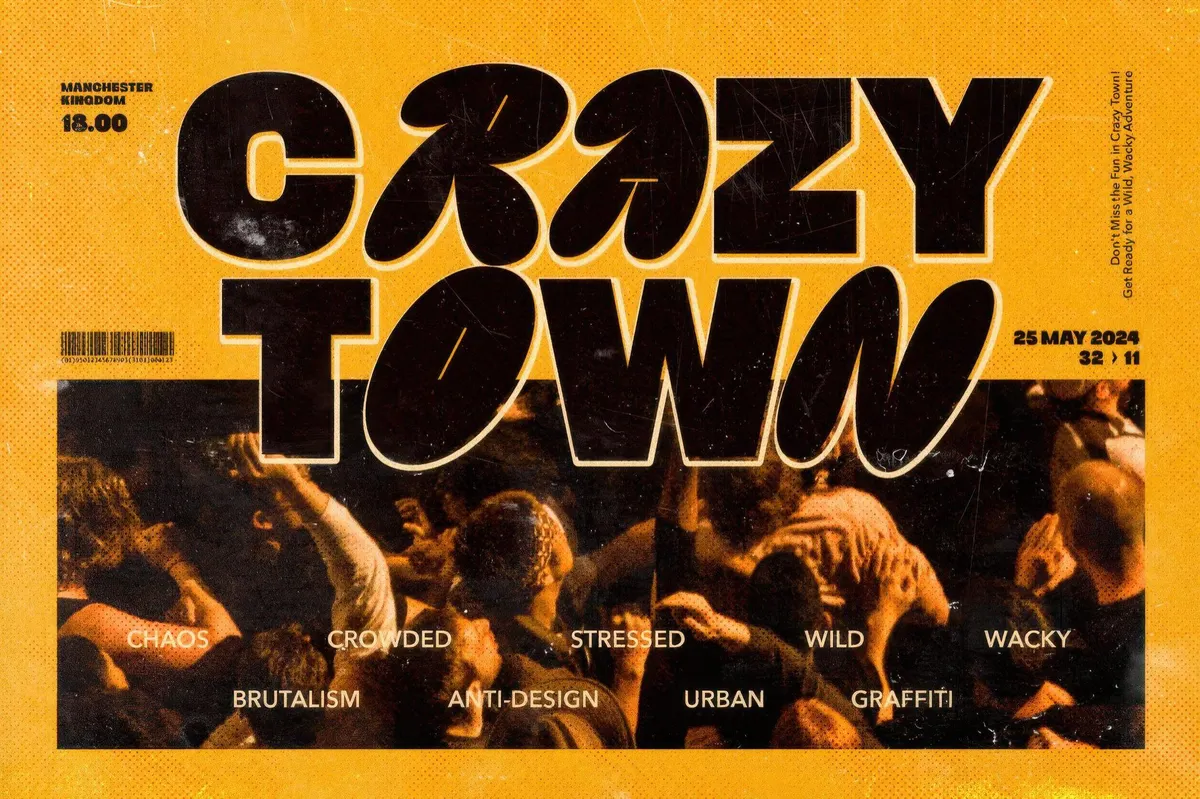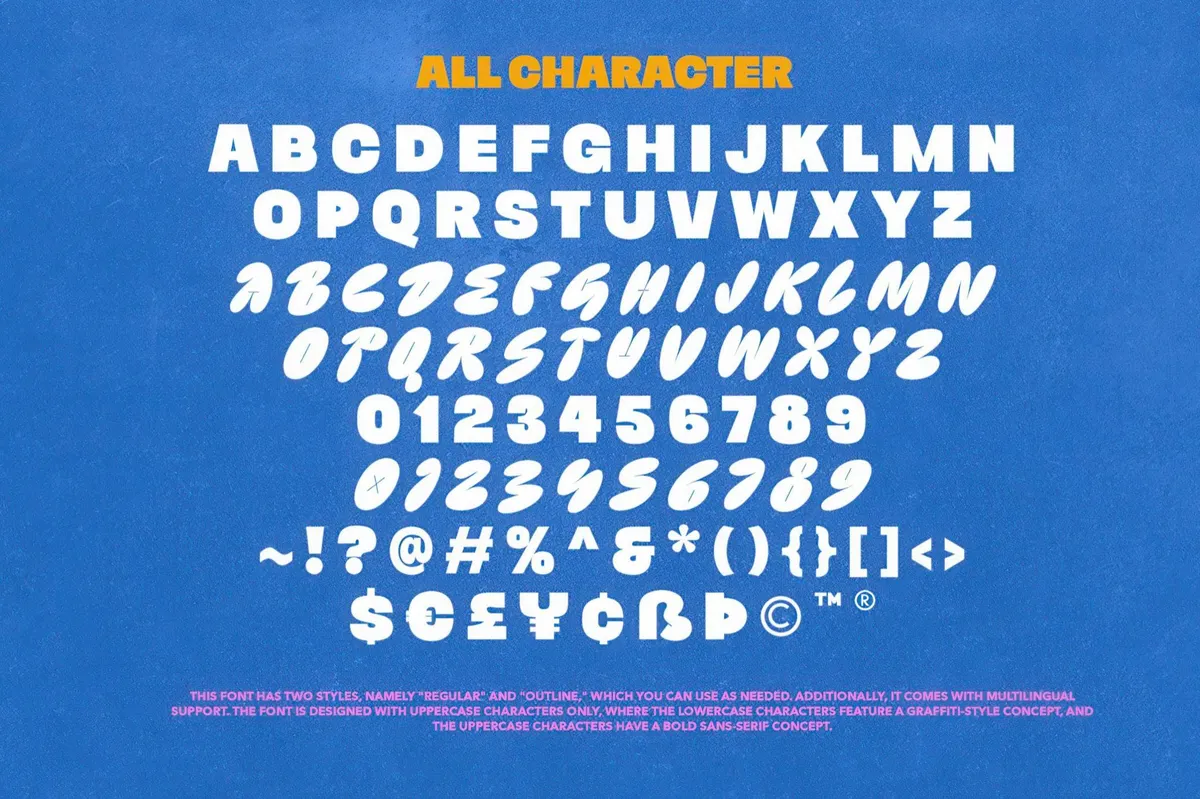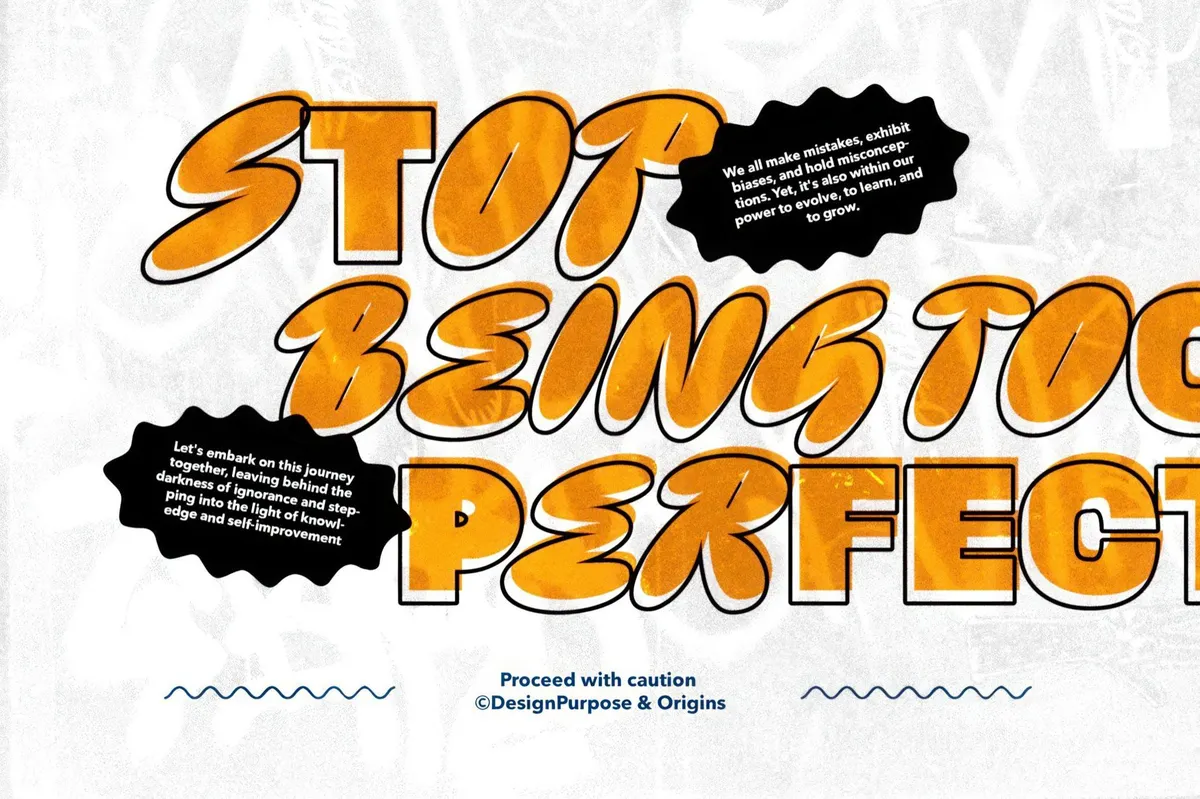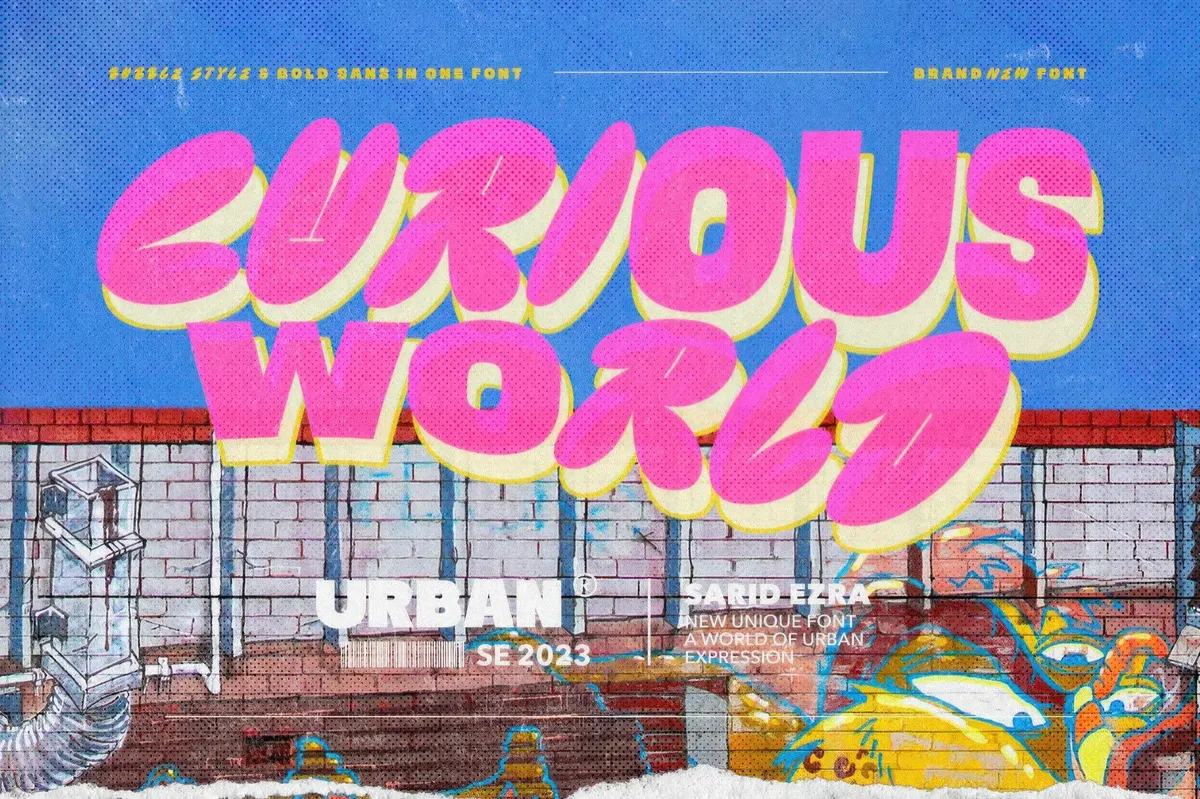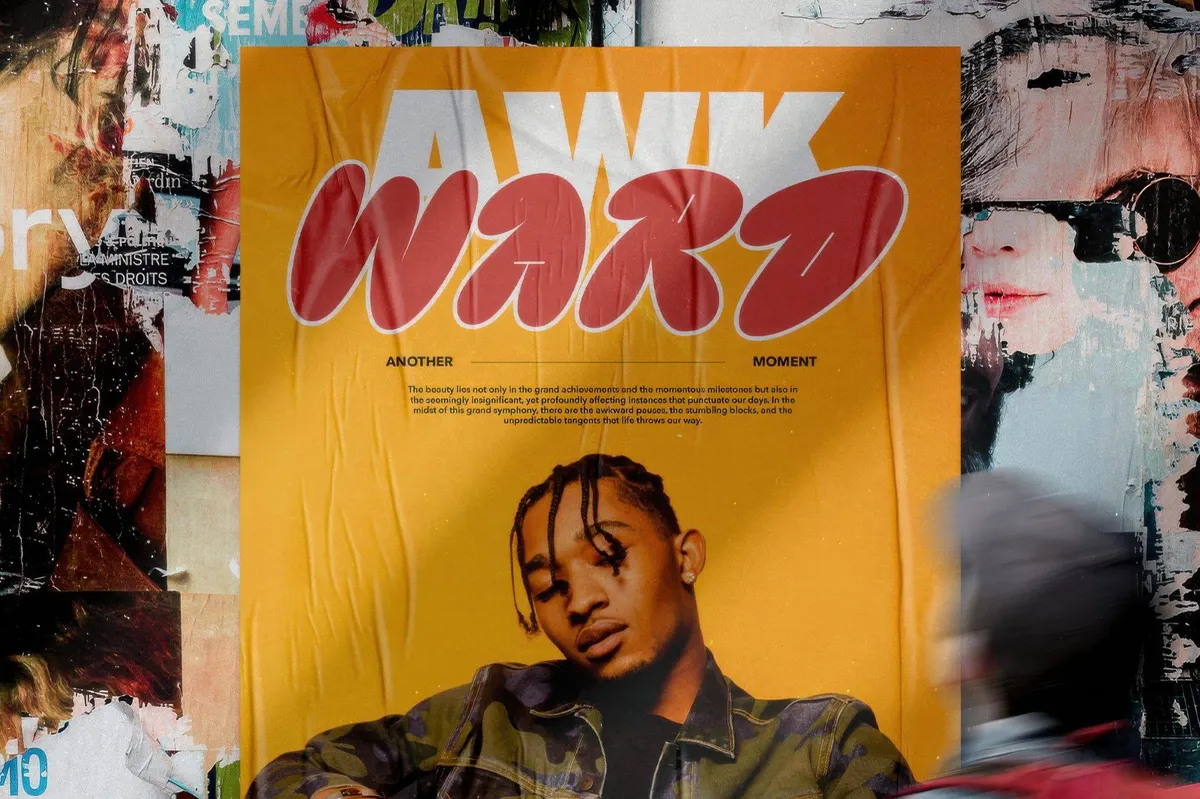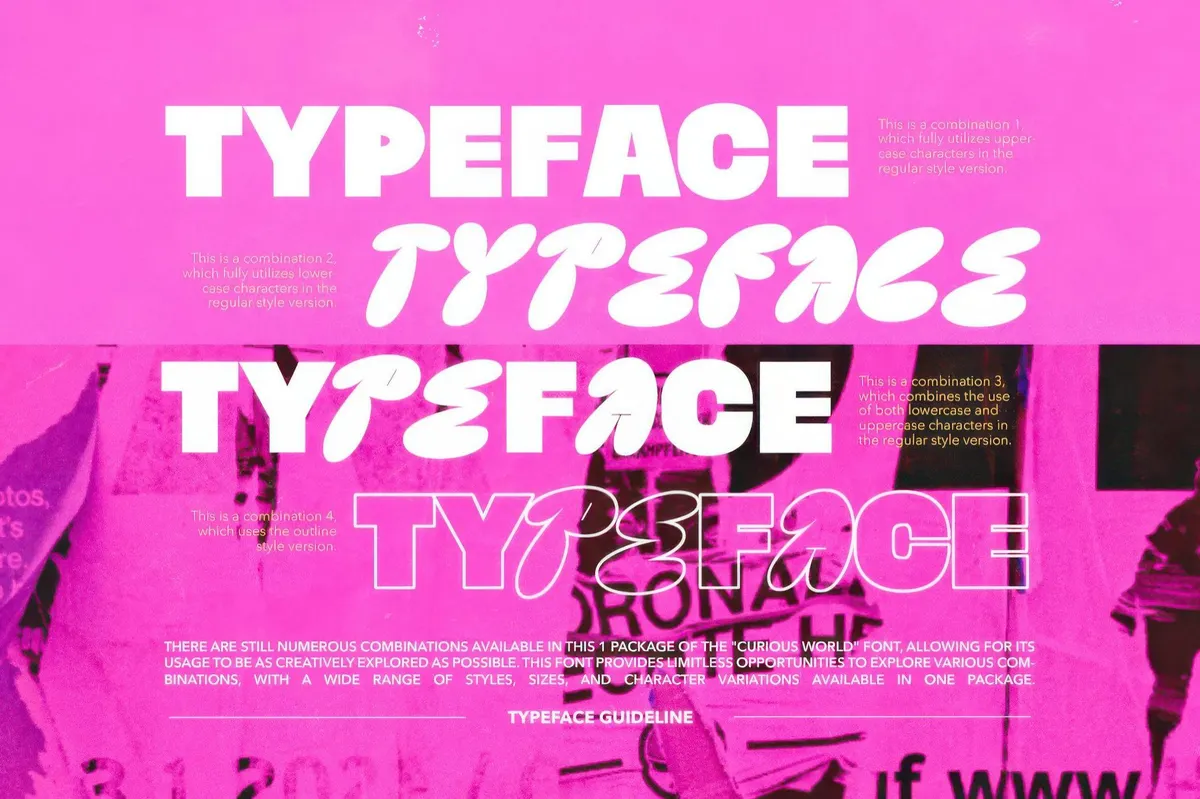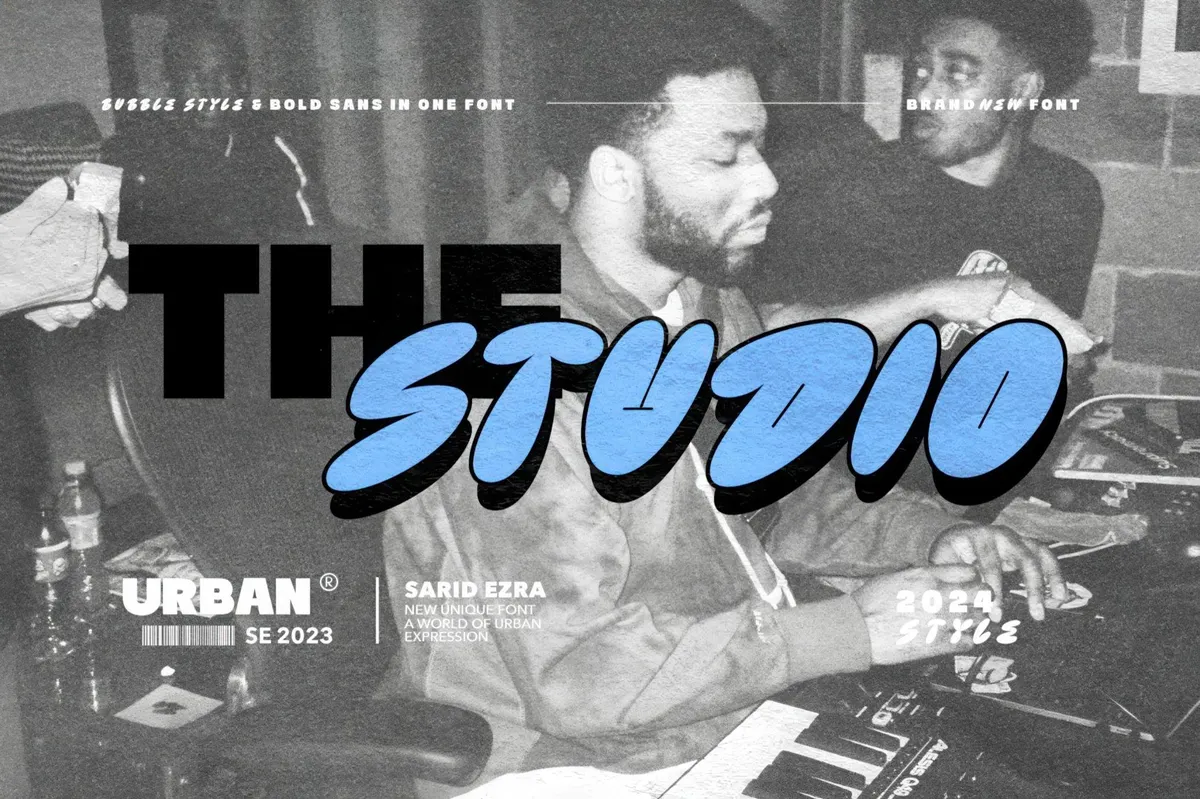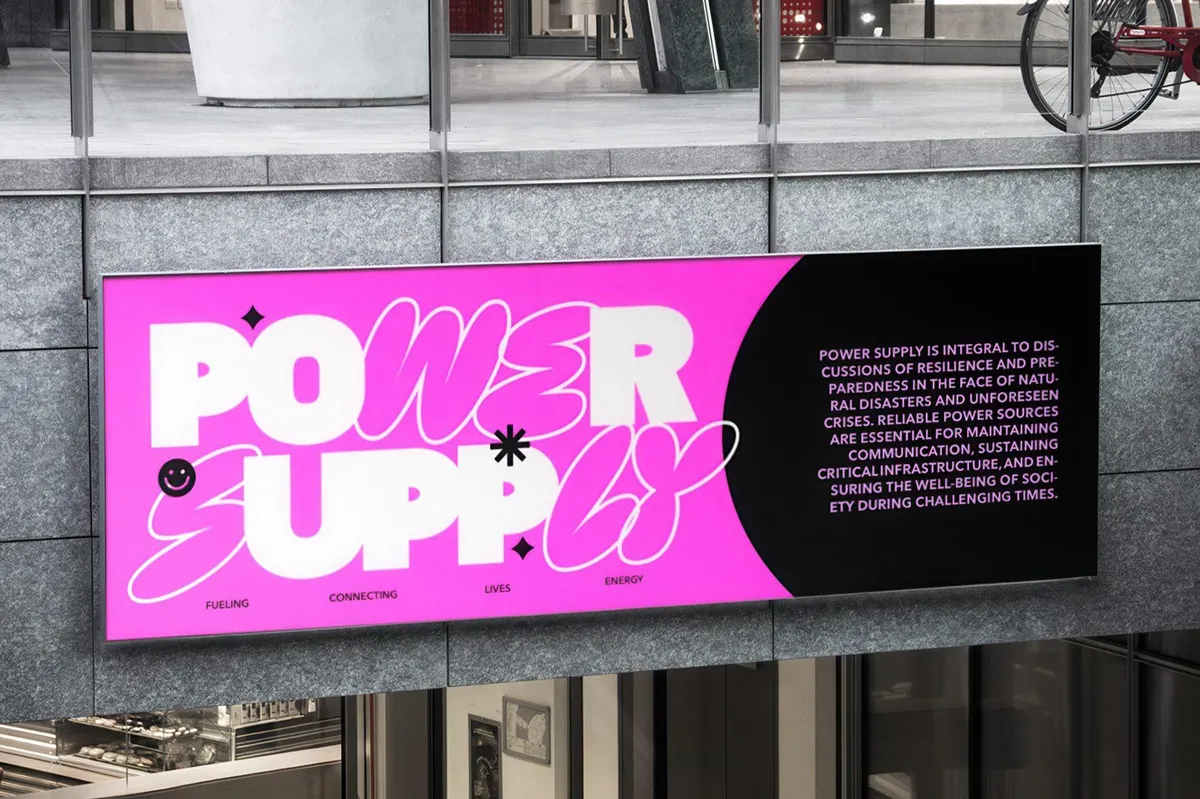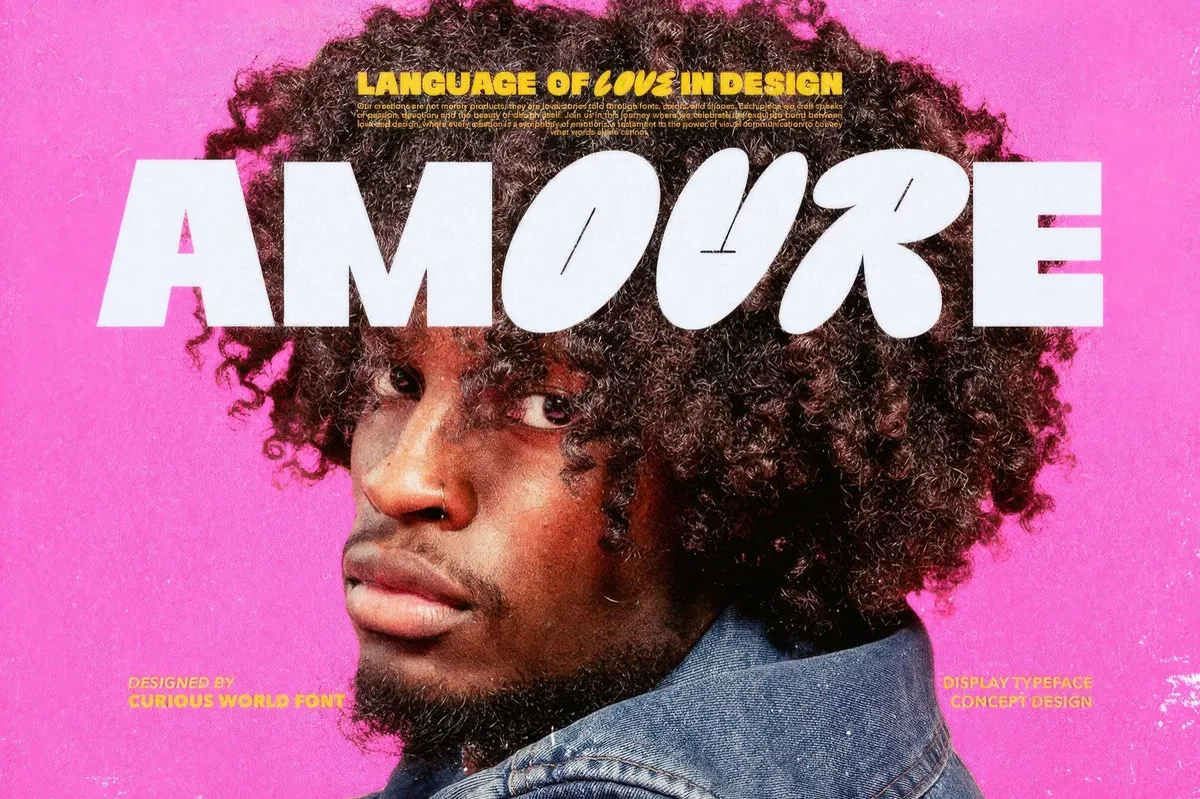
Curious World — Fancy Bold Font
Curious World rewrites the rules of typography with its fearless blend of bubble and bold sans styles. Uppercase sans commands attention with clean lines, while lowercase bubble letters explode with personality and a playful edge. You can switch between these styles within a single word, creating designs that feel wild, fresh, and dynamic. The OpenType features unlock alternate numerals in bubble style, adding even more flexibility. From multilingual support to punctuation, it’s all here in one striking package. Perfect for street art-inspired posters, bold editorial layouts, or event branding that demands a statement, this font ensures no project goes unnoticed.